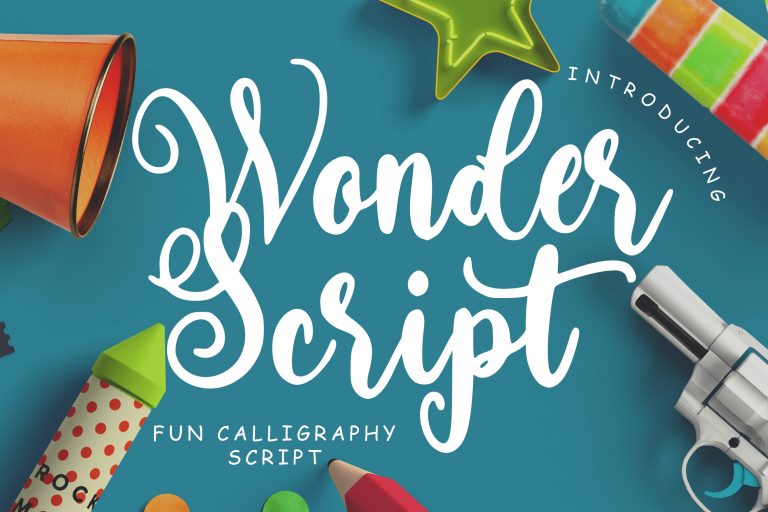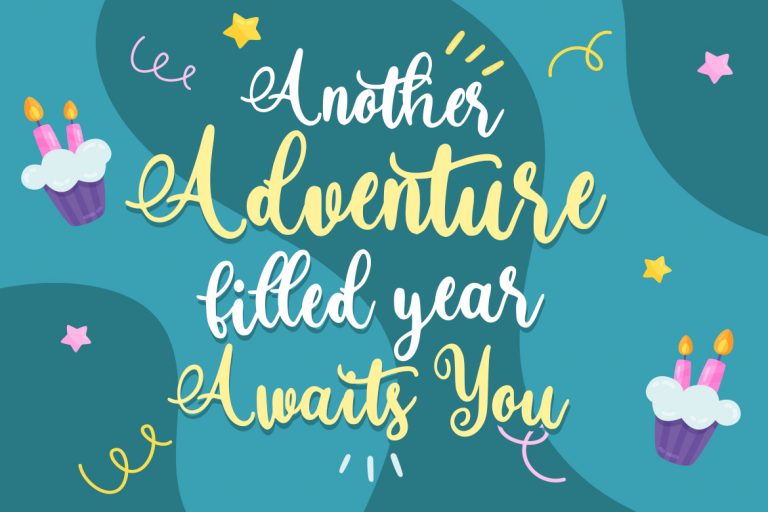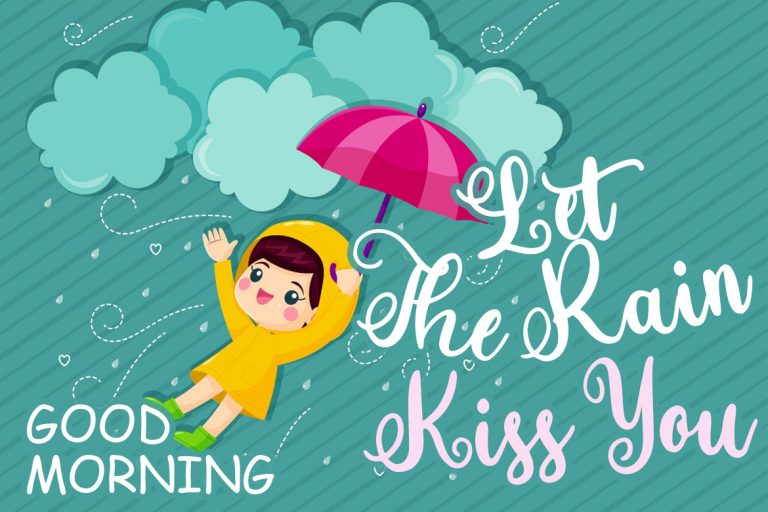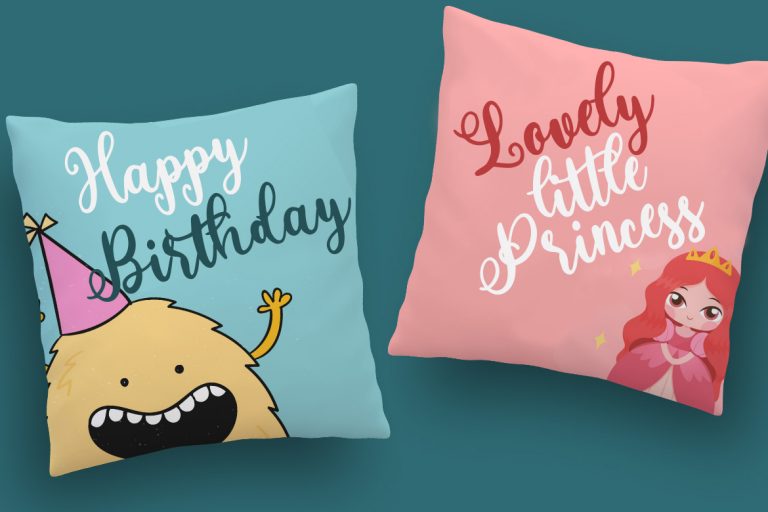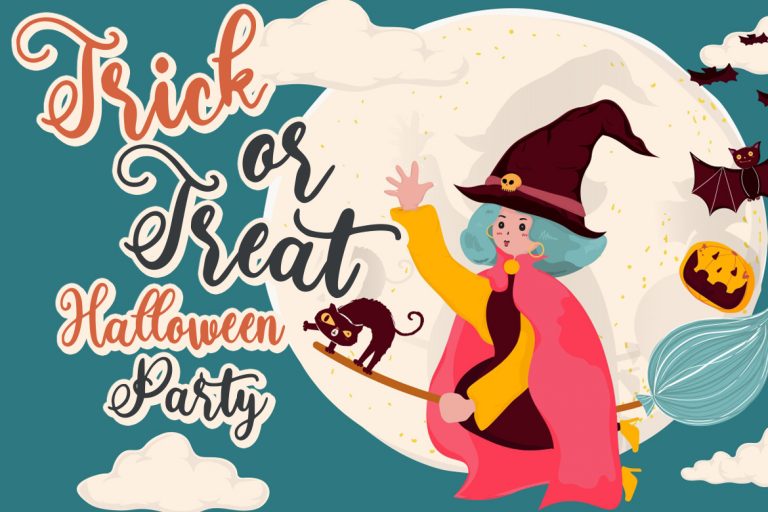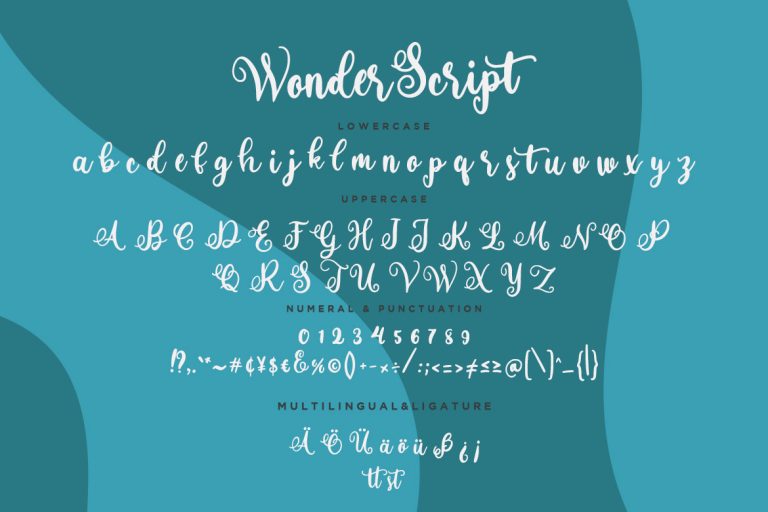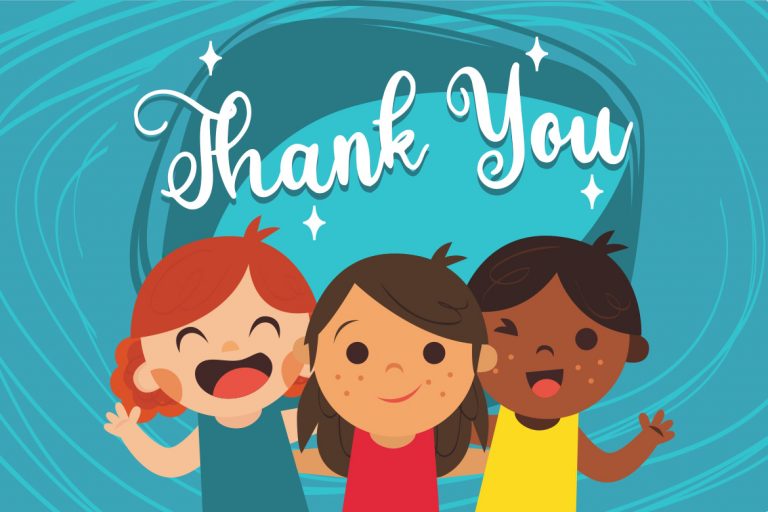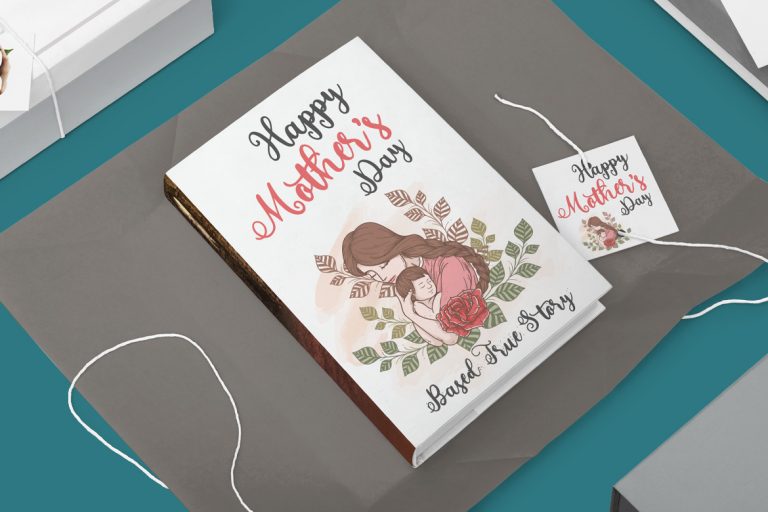
Wonder Script is fun and joyful calligraphy font which suit with children event.
Wonder Script is perfect for branding projects, logo, wedding designs, social media posts, advertisements, product packaging, product designs, label, photography, watermark, invitation, stationery and any projects that need handwriting taste.
- Fonts include multilingual support for; ä ö ü Ä Ö Ü ß ¿ ¡
Wonder Script Fun Calligraphy